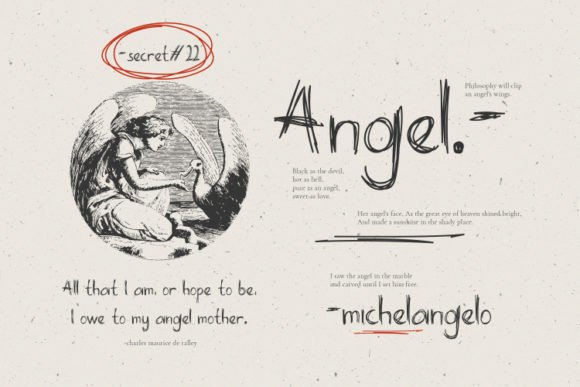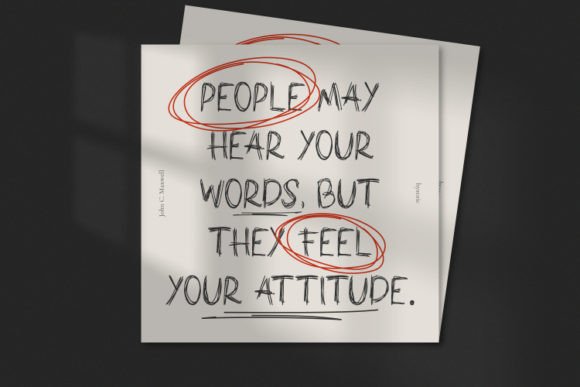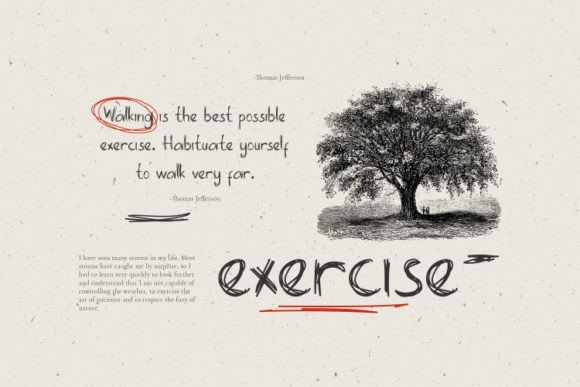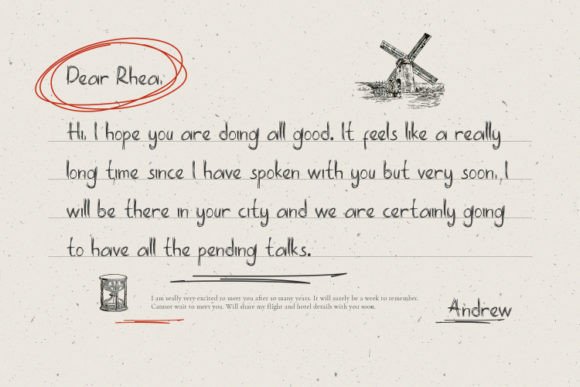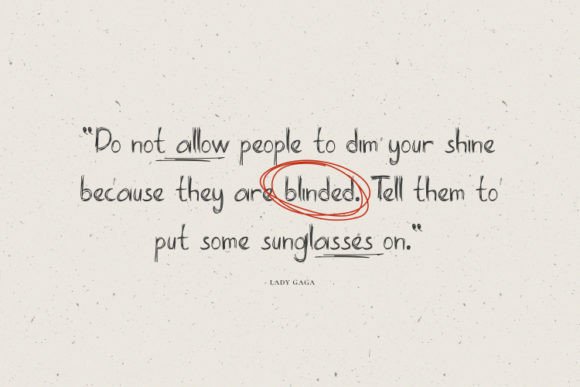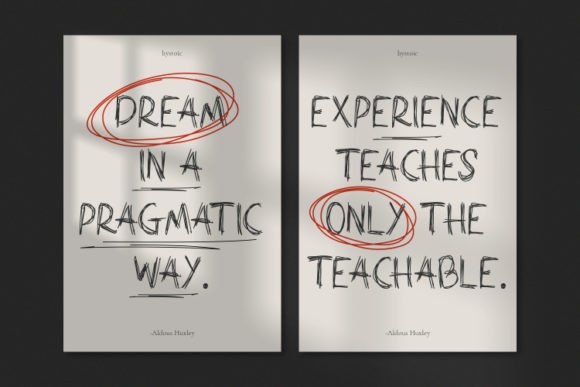
Discover the Charm of Hystoic Font
There’s nothing quite like the feeling of sitting down at your desk, surrounded by scraps of paper, paint, and glue, as you embark on a new creative project. The blank page stares back at you, waiting for your imagination to bring it to life. This is where the magic happens, and inspiration strikes. For many of us, the perfect font can make all the difference in bringing our vision to reality.
That’s where the Hystoic Font comes in – a cool and casual handwritten font designed to add a personal touch to your crafts, digital designs, presentations, and greeting cards. Whether you’re a seasoned designer or a hobbyist, this font is sure to become your new favorite go-to. Its versatility and charm make it an invaluable asset for any creative project.
- Font Family: Hystoic Font offers a range of unique, hand-crafted font styles with various weights and italics.
- Character Set: Supports a wide range of characters, including Latin, Cyrillic, and Greek alphabets, as well as various punctuation and symbol sets.
- Resolution: Designed to work at high resolutions, making it ideal for print and digital applications where crisp, clear typography is essential.
- Size: Available in a range of font sizes, from 12pt to 72pt, allowing for flexibility in design and layout.
- Unique Characteristics: Hystoic Font features a distinctive, hand-drawn aesthetic with subtle texture and imperfections, giving it a unique and human touch.
Hystoic Font Review
I recently had the chance to work with Hystoic Font, and I have mixed feelings about it. Here’s my honest review.
- The unique design of Hystoic Font is a major plus. It adds a touch of personality to any text-based design.
- The font is highly customizable, making it easy to adjust the style to fit your project’s needs.
- The font is well-suited for titles and headings, as it grabs attention without being overwhelming.
- The font can be difficult to read at smaller sizes, which may limit its use in body text.
- The font’s unique design can also make it difficult to pair with other fonts, which may limit its versatility.
- The font’s high customizability can also make it overwhelming to work with, especially for beginners.
Hystoic Font is a great choice for designers looking to add a touch of personality to their projects. However, it may not be the best choice for projects that require clear, easy-to-read body text. With some careful consideration and planning, Hystoic Font can be a valuable addition to any designer’s toolkit.
The Hystoic Font is perfect for creating visually appealing headings, titles, and quotes. Use it to:
- Highlight important information and calls-to-action.
- Create a consistent brand identity.
- Add a touch of elegance to your designs.
Remember to use the Hystoic Font sparingly and in moderation to avoid overwhelming your design.
Alternatives to “Hystoic Font” for Designers
Playfair Display is a luxurious and elegant serif font. It is ideal for use in titles, headings, and other high-end designs where a touch of sophistication is desired. Playfair Display is similar to Hystoic Font in its formal and classic feel, but it has a more refined and intricate design.
Pacifico is a beautiful and elegant script font. It is perfect for use in designs that require a touch of warmth and personality. Pacifico is similar to Hystoic Font in its elegant and refined feel, but it has a more fluid and cursive design.
Great Vibes is a modern and elegant script font. It is ideal for use in designs that require a touch of sophistication and creativity. Great Vibes is similar to Hystoic Font in its elegant and refined feel, but it has a more modern and playful design.
Alex Brush is a beautiful and elegant script font. It is perfect for use in designs that require a touch of warmth and personality. Alex Brush is similar to Hystoic Font in its elegant and refined feel, but it has a more delicate and hand-drawn design.
What is the recommended line height for Hystoic Font?
The recommended line height for Hystoic Font is 1.2 to 1.5 times the font size. This will ensure that the text is easy to read and visually appealing. For example, if you’re using a font size of 16px, we recommend a line height of 19.2px to